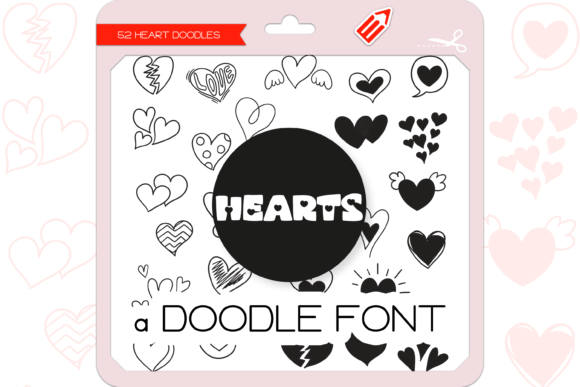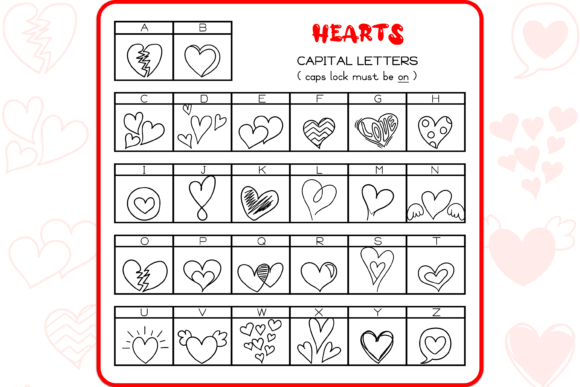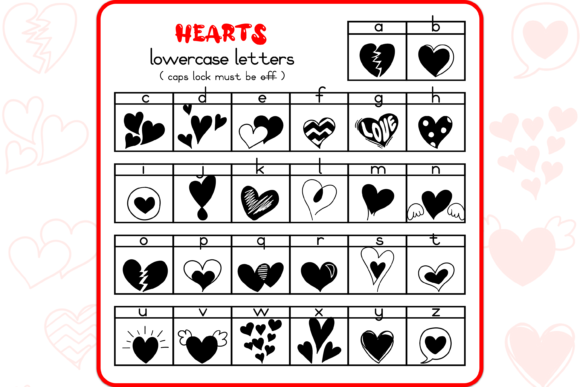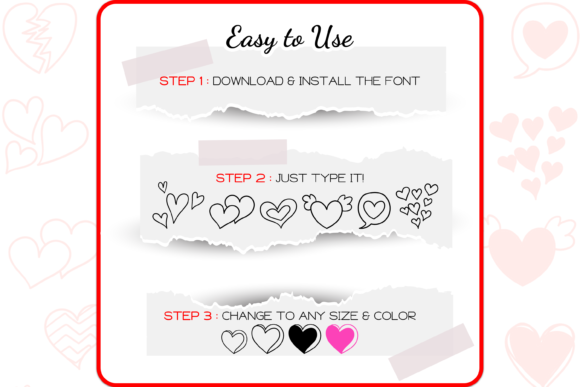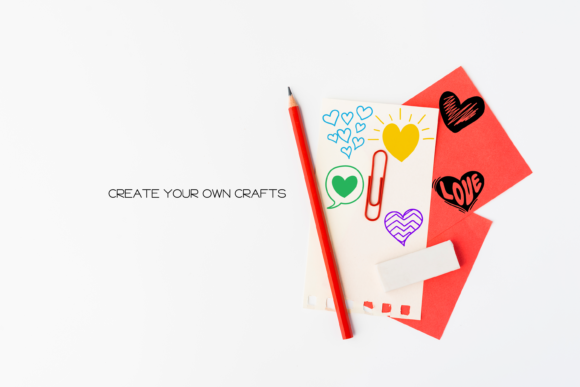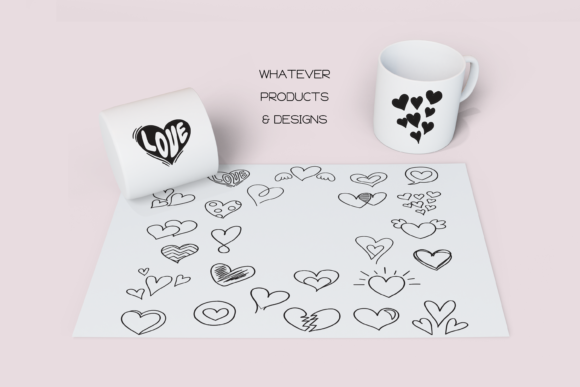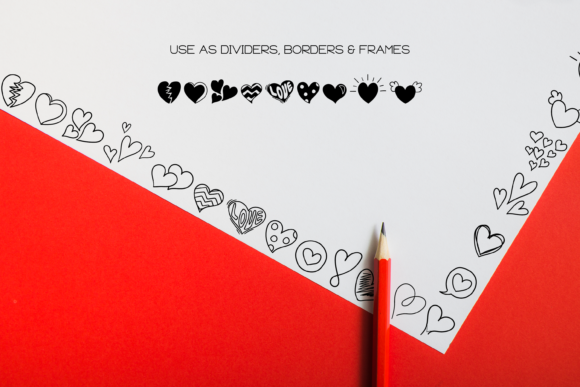
Adding a Touch of Love to Your Designs
Have you ever found yourself stuck in a creative rut, searching for the perfect element to elevate your design? You know that moment when you need something to bring your idea to life, and nothing seems to fit quite right? That’s where the magic happens, and the Heart Dingbats Font comes in – a delightful collection of hand-drawn doodles of hearts that will add a touch of whimsy and personality to your work.
With its 52 unique heart designs, this font is perfect for adding borders, dividers, and frames to your creations, or incorporating them into your own imaginative ideas. Whether you’re a seasoned designer or a creative enthusiast, the Heart Dingbats Font is an invaluable tool that will help you stand out and bring your designs to life in a way that’s both charming and effective.
- Font Type: Dingbats, Symbol Font
- Unique Characteristics: Heart-themed dingbats, perfect for Valentine’s Day, love-themed designs, and romantic projects
Heart Dingbats Font Review
I recently had the chance to work with the Heart Dingbats Font, and I must say it’s a unique addition to any design project. ✨ Here are some things that work well:
- Expressive and playful: The font is perfect for adding a touch of whimsy to your designs.
- Great for emotive projects: The heart-shaped dingbats make it ideal for projects centered around love, relationships, or friendship.
- Easy to use: The font is relatively simple to implement and can be easily integrated into most design software.
- Limited versatility: The font is very specific in its application and might not be suitable for a wide range of projects.
- May not be suitable for formal projects: The playful nature of the font might make it too casual for formal or professional projects.
Overall, I think the Heart Dingbats Font is a great addition to any designer’s toolkit, but it’s essential to understand its limitations and use it in the right context. With careful consideration, this font can add a delightful touch to your designs and leave a lasting impression on your audience.
Use Heart Dingbats Font to create eye-catching graphics, such as Valentine’s Day cards, wedding invitations, or social media posts.
Use Heart Dingbats Font to create custom illustrations, graphics, or typography-based designs.
Use Heart Dingbats Font to create engaging presentations, reports, or documents.
Common use cases for Heart Dingbats Font include:
1. Valentine’s Day and wedding-themed designs.
2. Social media posts and graphics.
3. Custom illustrations and typography-based designs.